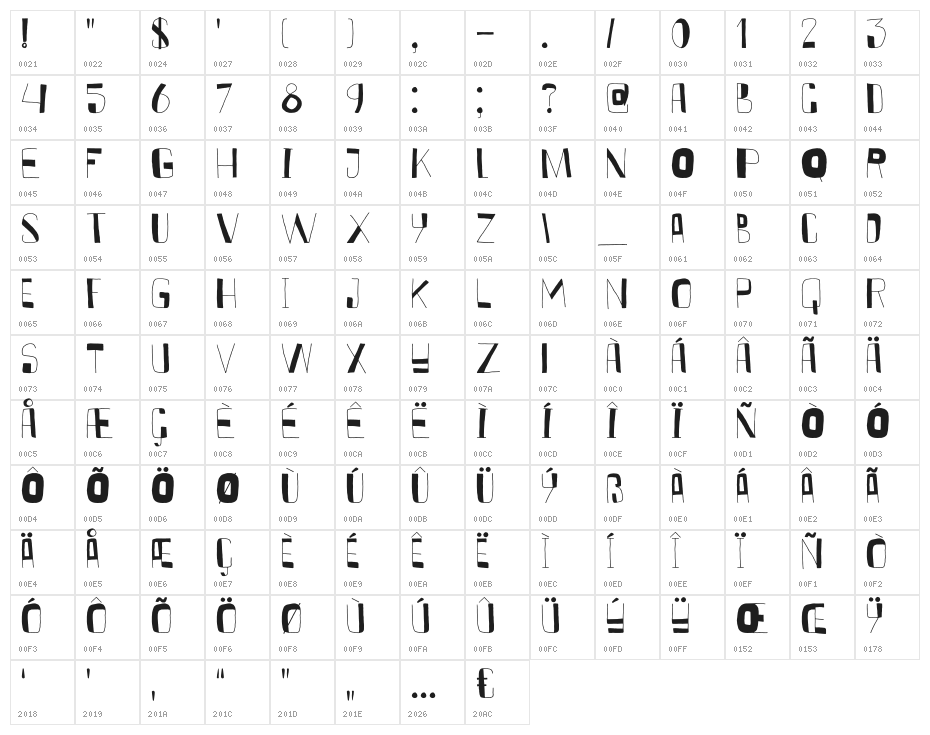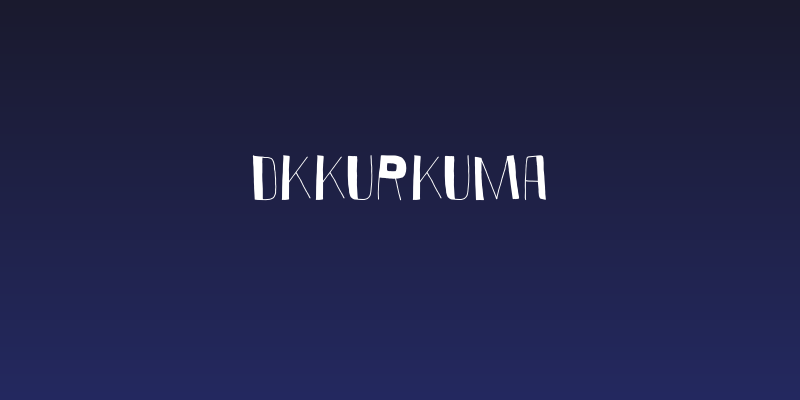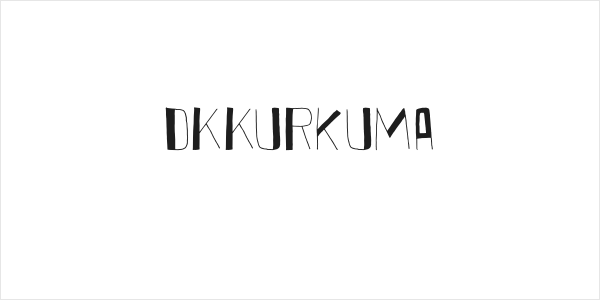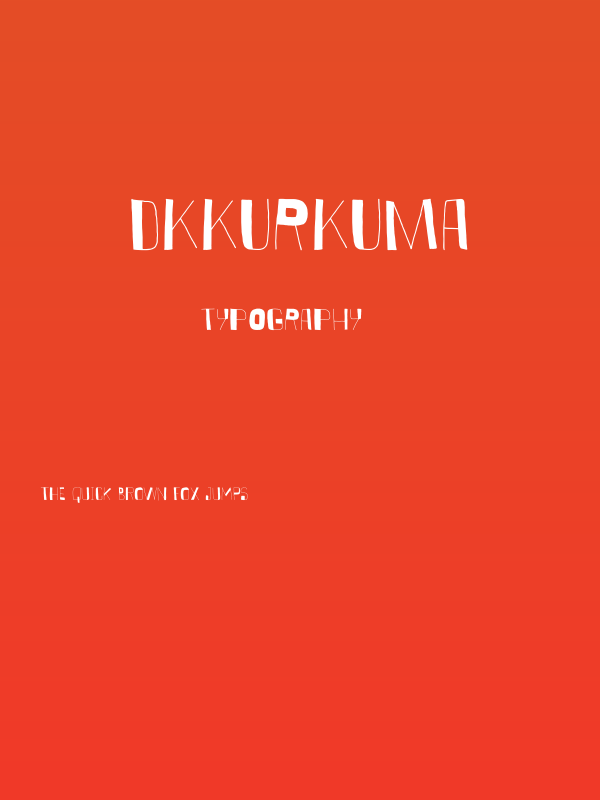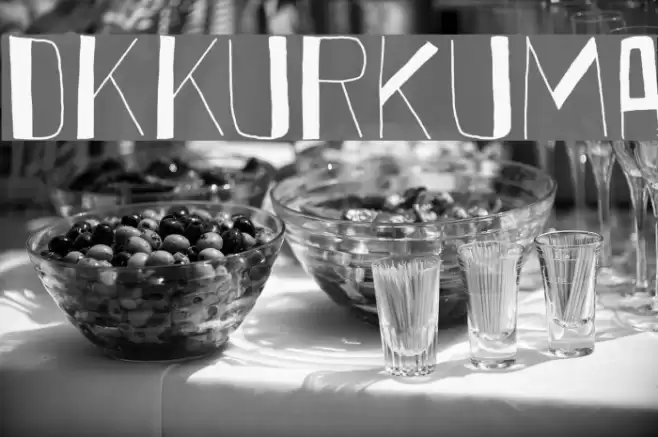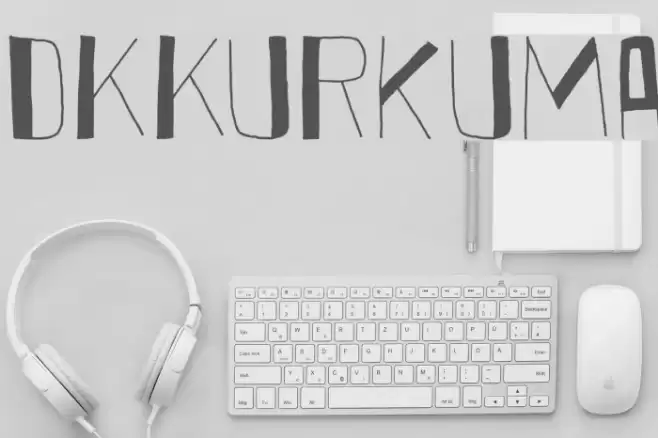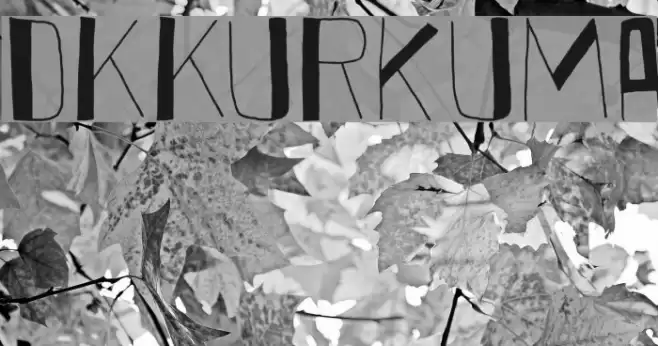
DKKurkuma Font
DKKurkuma Description
This font exhibits a unique and playful style with a hand-drawn appearance. The characters are irregular in shape, giving them a whimsical and artistic feel. The uppercase letters are bold and slightly uneven, while the lowercase letters maintain a consistent yet quirky design. Numbers and special characters follow the same playful aesthetic, making them stand out with their distinct forms. The overall design is informal and creative, suitable for projects that require a touch of personality and originality.
| Overall Style | Artistic, Whimsical |
| Proposed Projects | Ideal for children's books, creative posters, artistic branding, and informal invitations. |